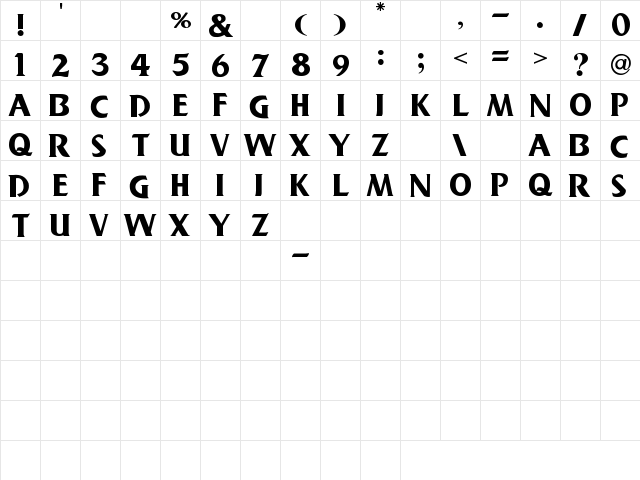
Busch Gardenz Regular
| Foundry | High-Logic |
| Designer | High-Logic - Erwin Denissen |
Design Context for Busch Gardenz Typeface
Busch Gardenz takes a measured approach to typography — its balanced proportions and neutral character make it a reliable workhorse for both digital and print work.